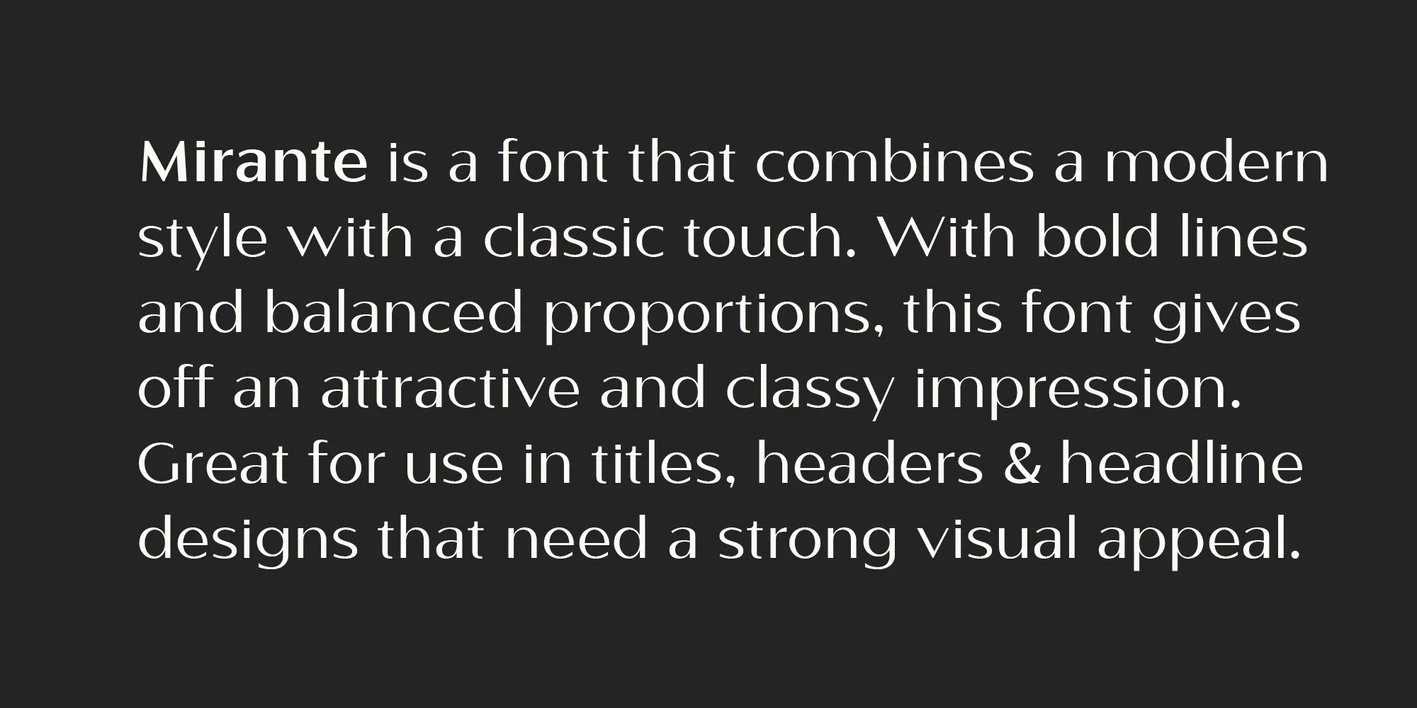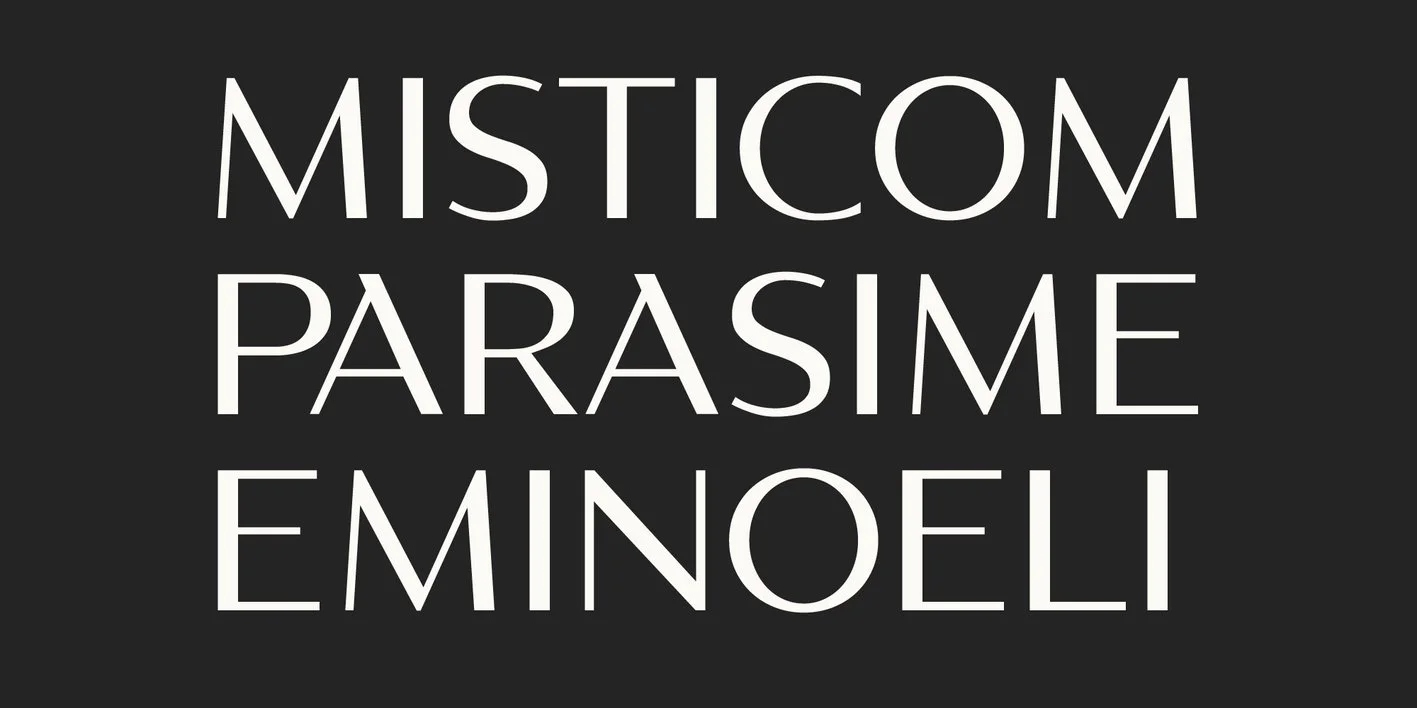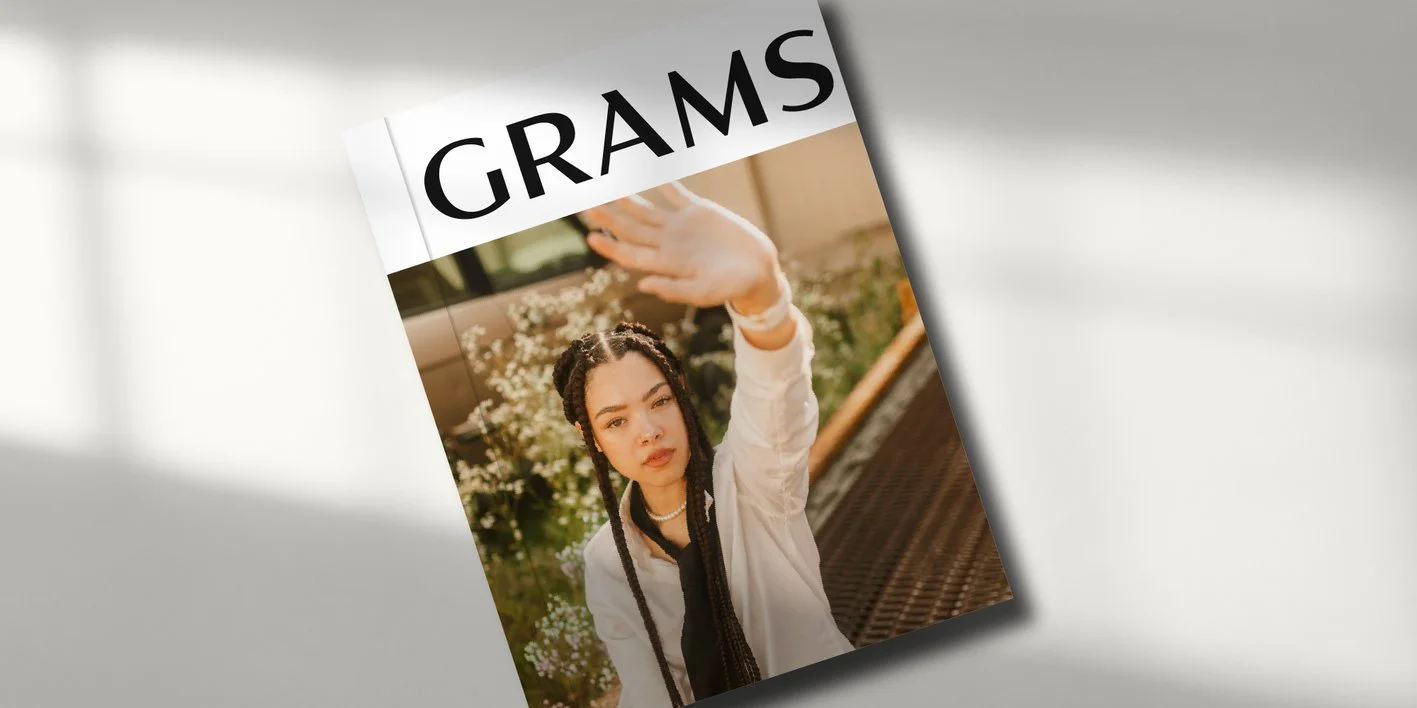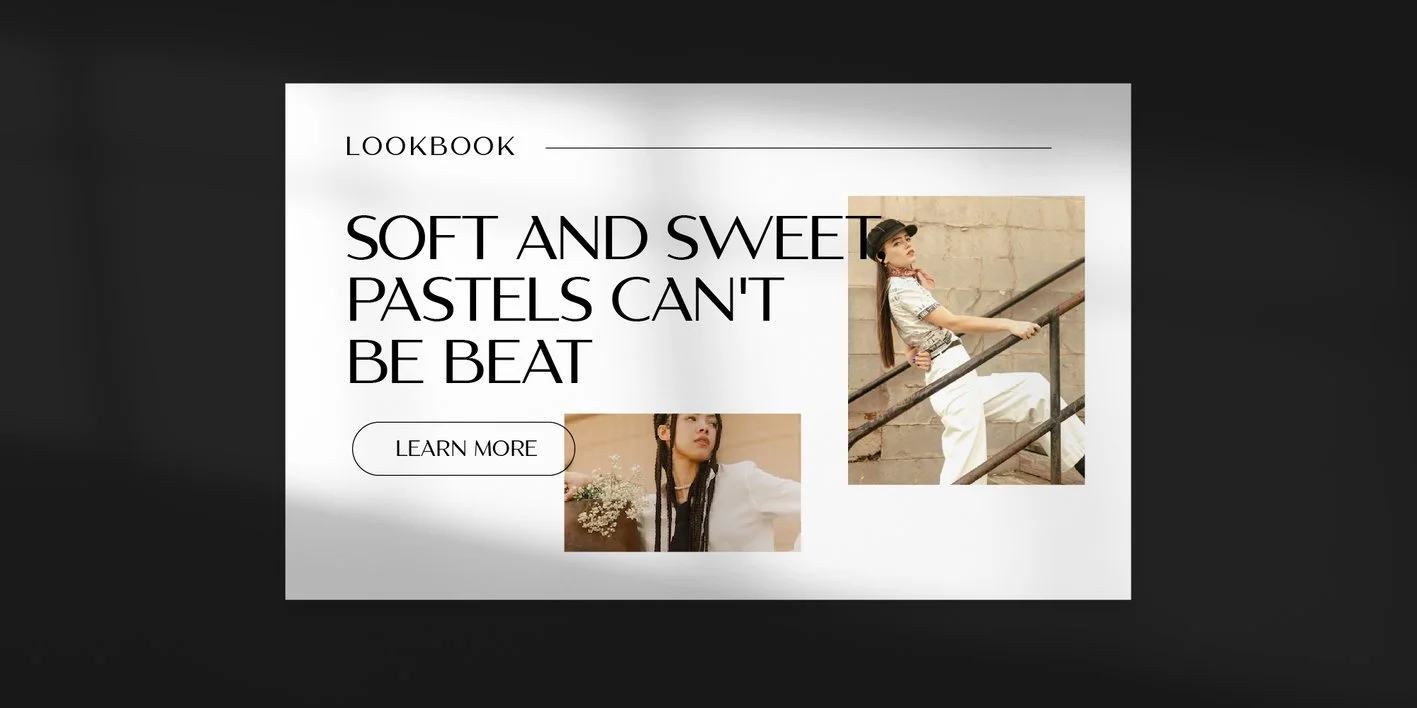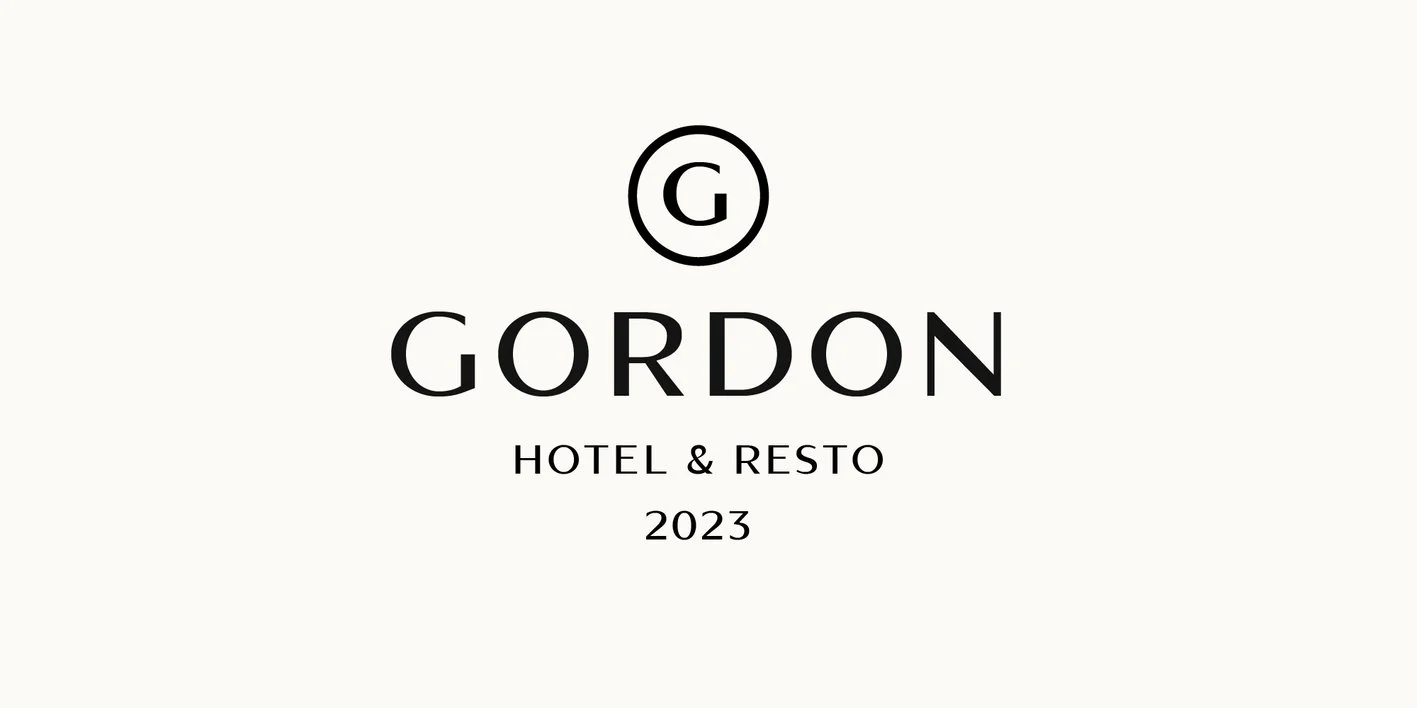
Mirante Font
Typography shapes perception at a subconscious level. Mirante leverages optical balance across all weights to make every composition feel considered. The typeface brings a versatile sensibility to a broad range of creative disciplines, with consistent type colour across continuous text that holds up whether the work is print-first or screen-first.
In practice, Mirante proves particularly effective for environmental graphics, signage systems, advertising campaigns, annual reports, packaging design. Designers reaching for it find that the type decisions feel resolved rather than laboured — a useful quality when client timelines are tight.
The range of applications extends to product labels, logo design, web design, editorial layouts. That breadth is deliberate: the proportions and spacing were stress-tested across a wide range of mock briefs before the typeface was finalised.
The proportions balance x-height, cap height, and ascender length to produce a face that reads confidently at body copy sizes without losing presence at display scale. Sidebearings were derived from visual rhythm testing rather than mathematical calculation alone.
At smaller sizes the design retains its character without becoming cluttered. This resilience across scales makes Mirante equally suitable for a business card and a billboard — a useful property when assets must scale across a campaign.
Brand strategists building visual languages find Mirante a reliable choice for projects that demand both personality and restraint. The design avoids the self-conscious quirkiness that dates quickly, settling instead for considered distinctiveness that holds up over time.